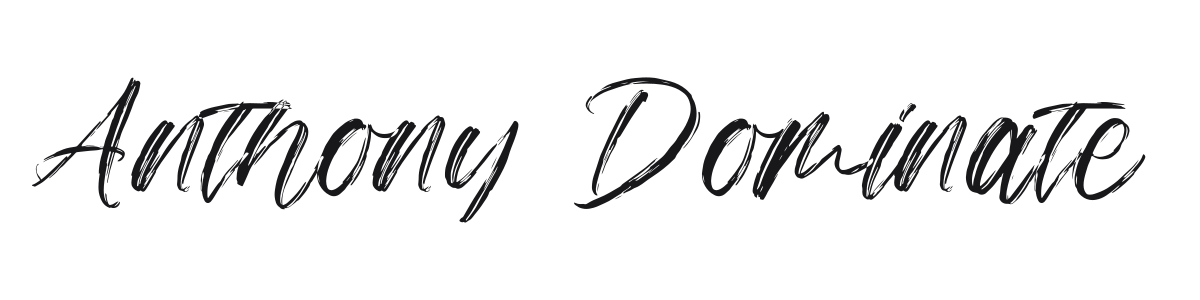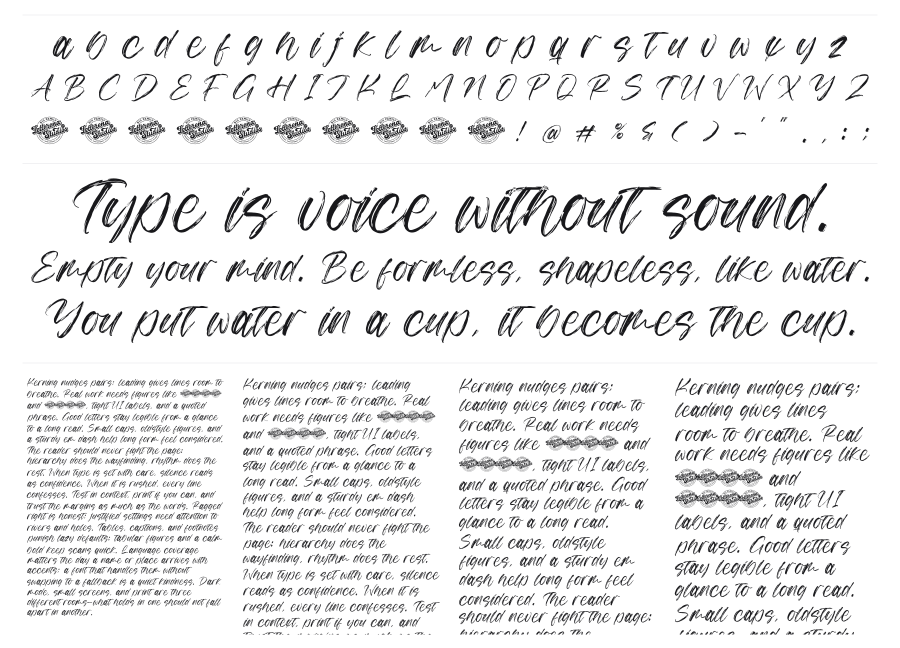
Anthony Dominate
Anthony Dominate is a bold handbrush script with rough bristle textures and fluid, connected strokes. The strong contrast between thick downstrokes and wispy hairline upstrokes gives it a raw, energetic quality that reads instantly at large sizes. It brings a sense of handcrafted urgency to branding, posters, and packaging.